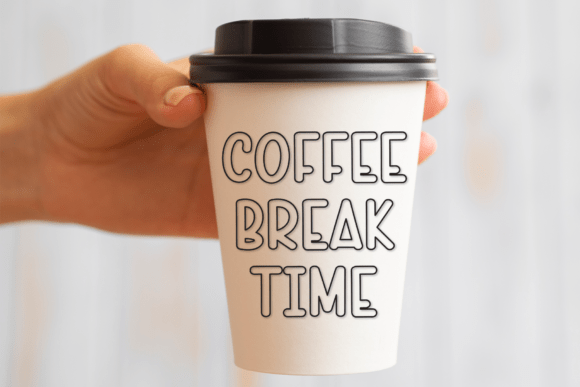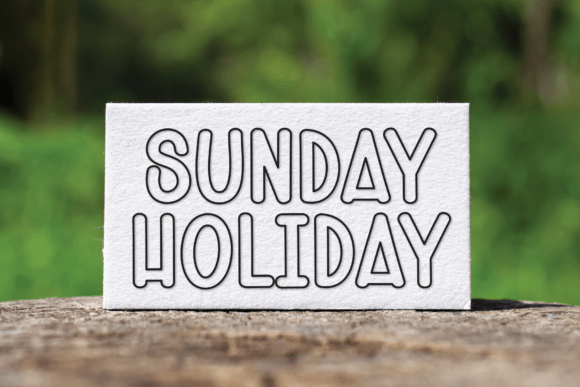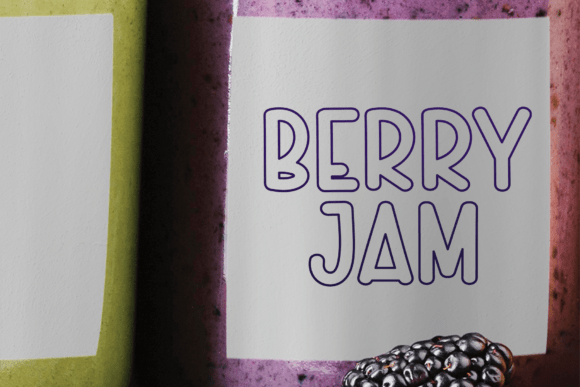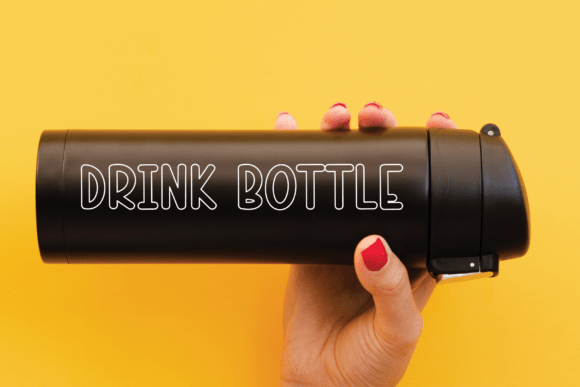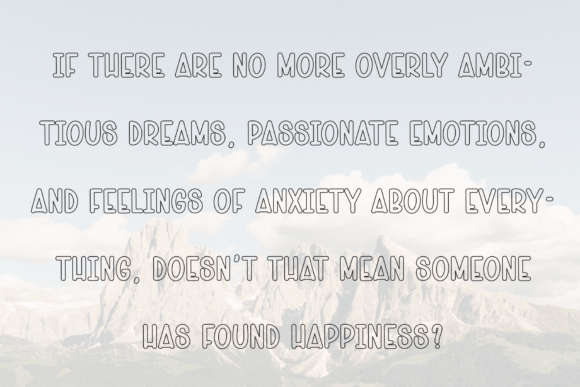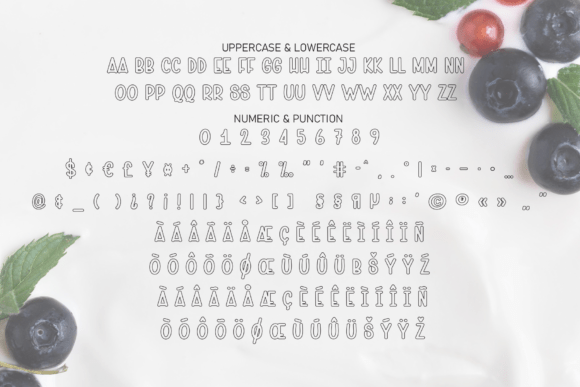
Introduction to Milk Berry Font
Introducing a charmingly playful handwritten display font, perfect for infusing your designs with a dash of whimsy.
Packed with pleasant sweetness and friendliness, this font offers a captivating aesthetic ideal for designing wedding invitations, greeting cards, or any creative project that calls for a touch of fun This charming font brings a breath of fresh air to your designs and wonderfully elevates your text to a delightful visual experience.
Key Features of Milk Berry Font
Why Choose Milk Berry Font?
Milk Berry Font offers exceptional quality and versatility, making it a valuable addition to your design toolkit. Whether you’re creating for personal projects or commercial use, Milk Berry Font delivers professional results.